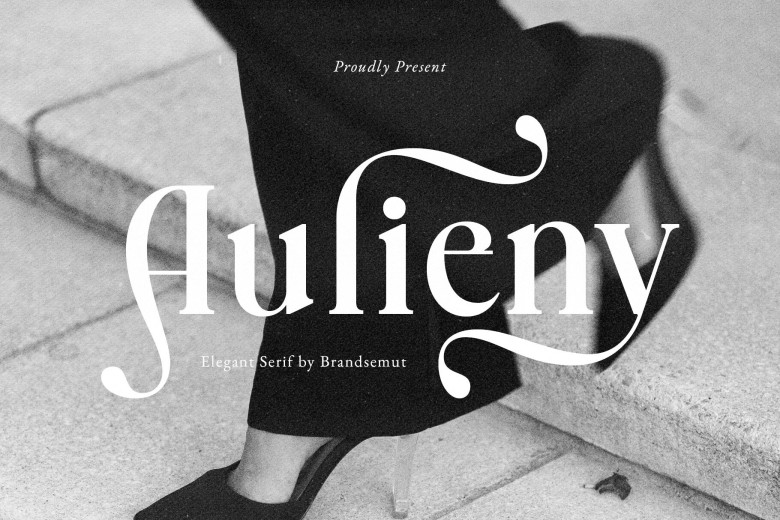
Aulieny Font
Aulieny is an exquisite, fashionable, and contemporary display serif most optimal for titles, logos, branding, magazines, packaging, and cards invitations. Aulieny is very versatile because it has many ligatures and various alternatives as for shapes: clean lines, smooth curves add class to any project.
Aulieny Serif Font